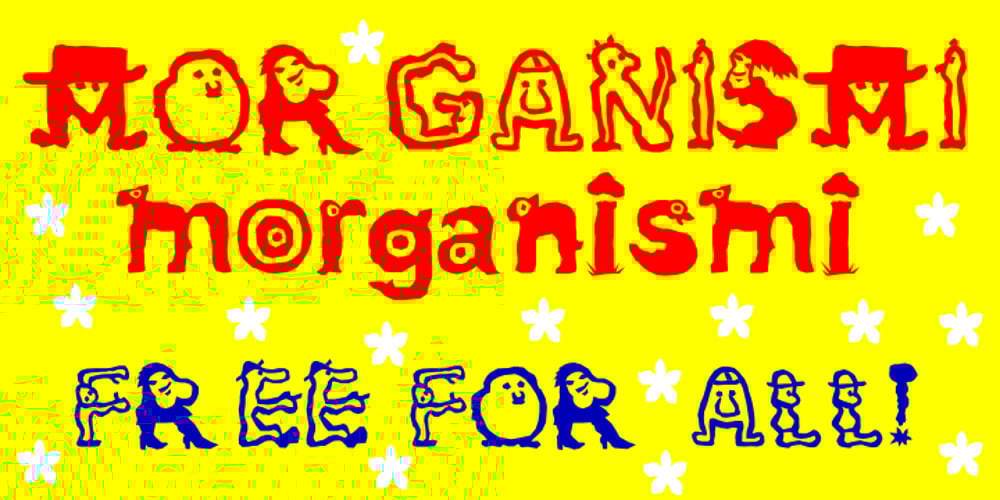
Morganismi Font Family was designed by Heikki Morgan Hämäläinen and published by Morganismi. Morganismi contains 1 styles and family package options. Morganismi is the first font I made for myself. I originally used it for making notes at the outsider art exhibition Morganismi here in Sysmä, Finland.